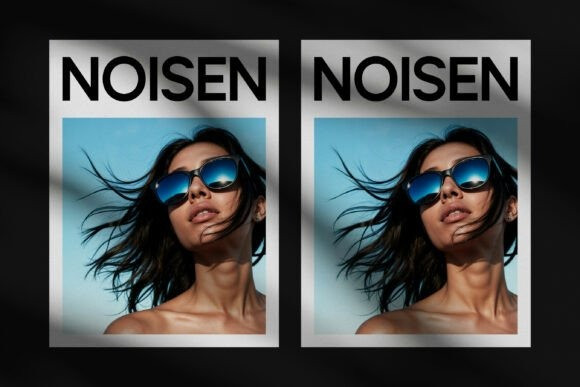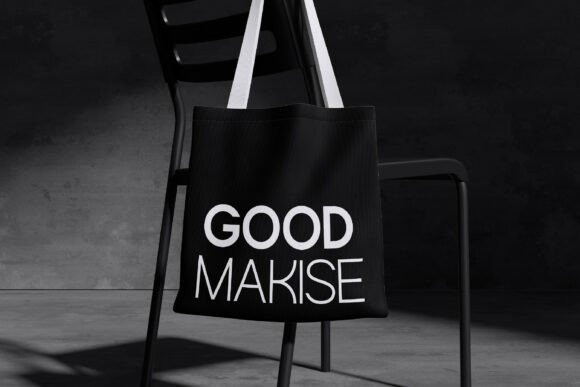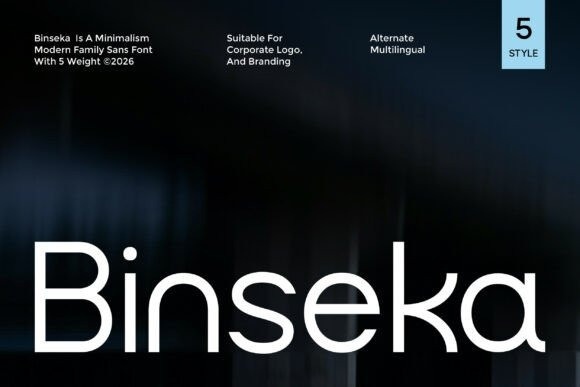
Binseka Font
Binseka Font is a modern sans serif family font designed to deliver clarity, versatility, and contemporary style in every detail. With its clean lines, balanced proportions, and refined geometry, Binseka offers a professional and minimalist look that adapts effortlessly across a wide range of design needs. From bold headlines to readable body text, this font family ensures consistency and visual harmony.